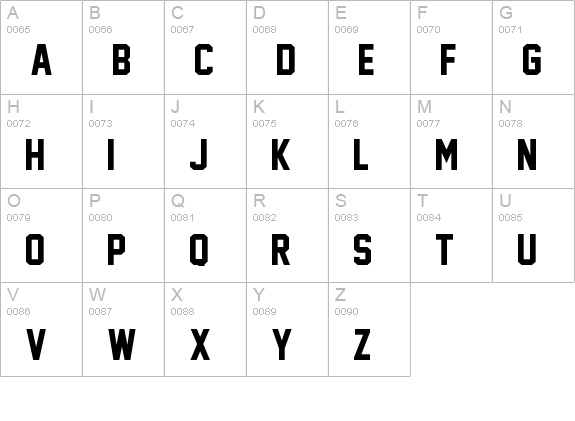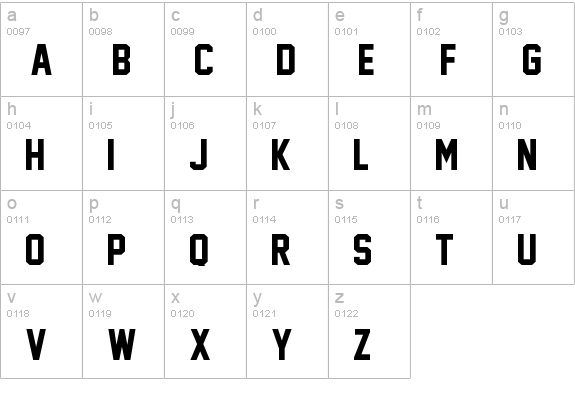
Jersey M54 font is a modern and stylish typeface that exudes confidence and sophistication. Its bold and edgy design makes it perfect for projects that require a strong and impactful statement. The engaging curves and sharp edges of this font create a sense of energy and movement, adding a dynamic touch to any design. One of the great things about Jersey M54 is that it is available for free! You can easily download this font from FontsMarket.com and start using it in your projects right away. Whether you're designing a sports logo, a poster, a website, or any other creative endeavor, Jersey M54 will definitely make a lasting impression. This font is not only visually appealing but also highly versatile. It can be used in both digital and print formats, ensuring that your designs will look stunning across various mediums. Its legibility and distinctiveness make it suitable for headlines, titles, and even body text. The clean and crisp lines of Jersey M54 font give it a contemporary and professional look, making it an excellent choice for businesses, branding, and corporate materials. It can also add a touch of elegance and sophistication to invitations, greeting cards, and other personal projects. With its wide range of glyphs and characters, Jersey M54 font supports multiple languages, making it accessible to a global audience. It is easy to install and use, allowing you to seamlessly integrate it into your design workflow. In conclusion, Jersey M54 font is a striking and versatile typeface that will elevate your designs to the next level. And the best part? It's free! So, don't miss out on the opportunity to download this amazing font from FontsMarket.com and let your creativity soar.